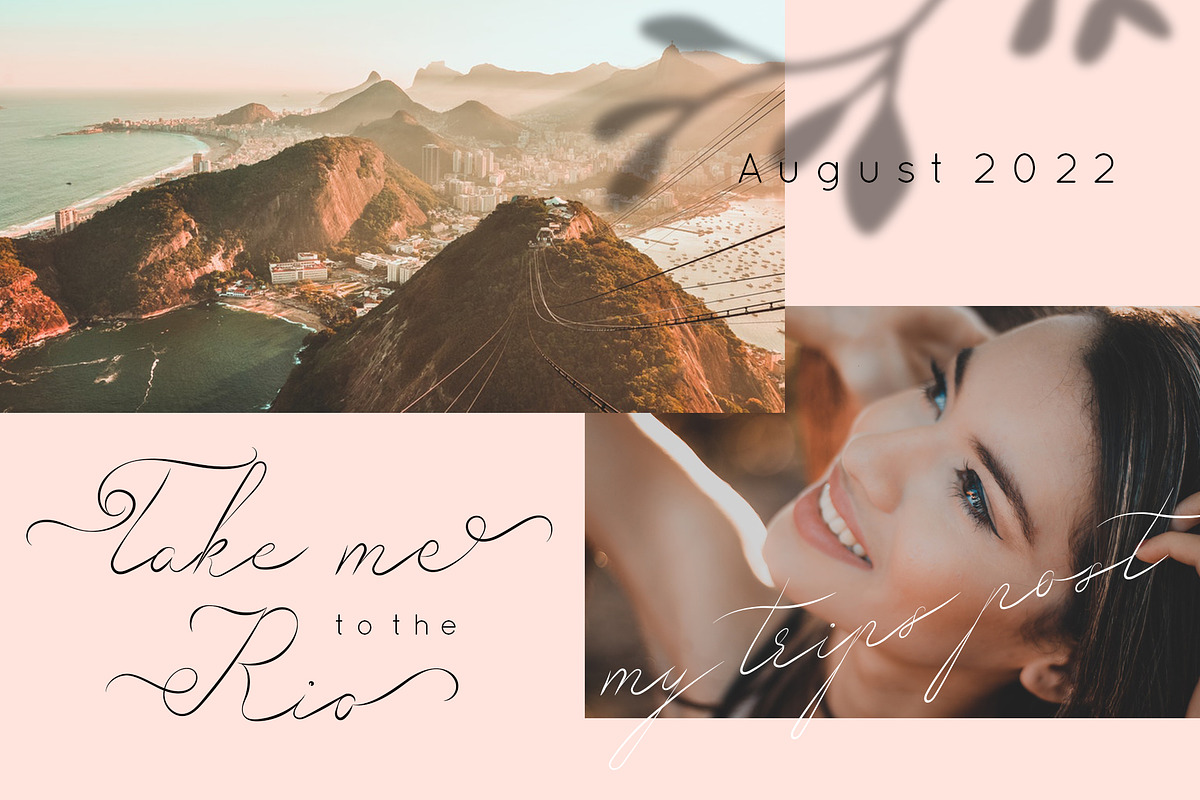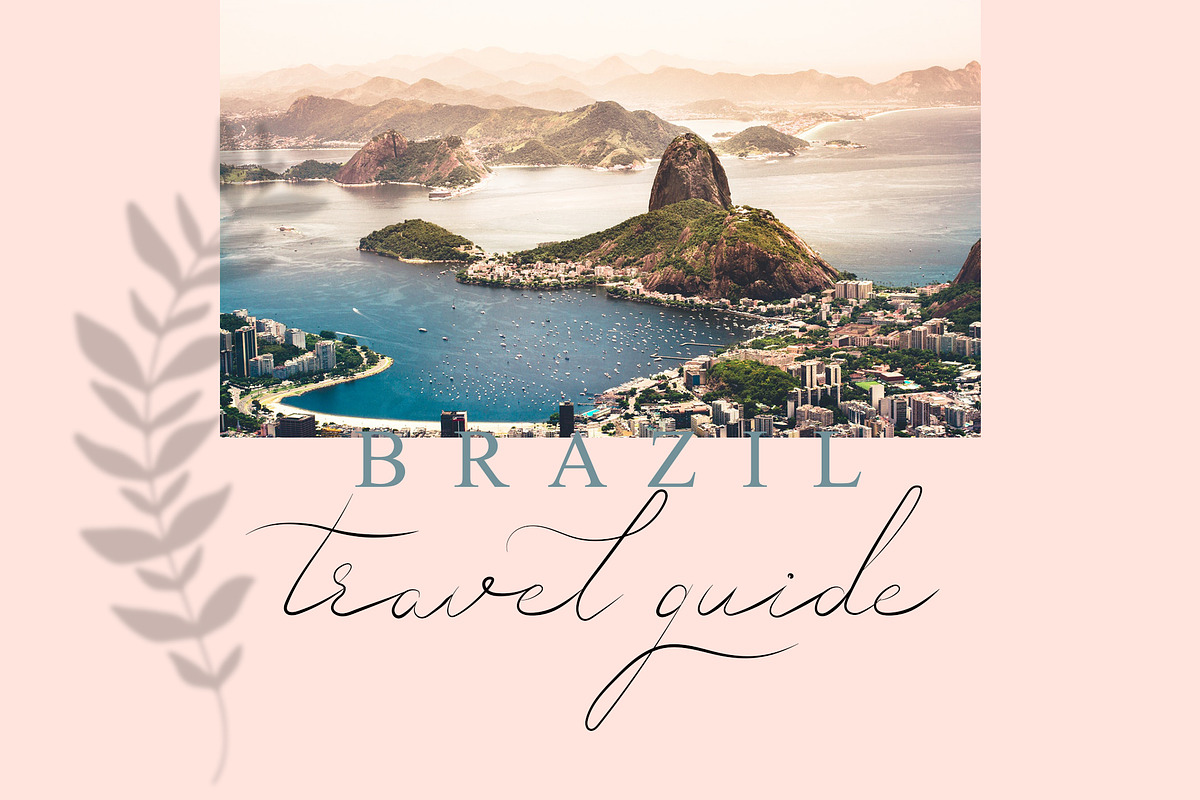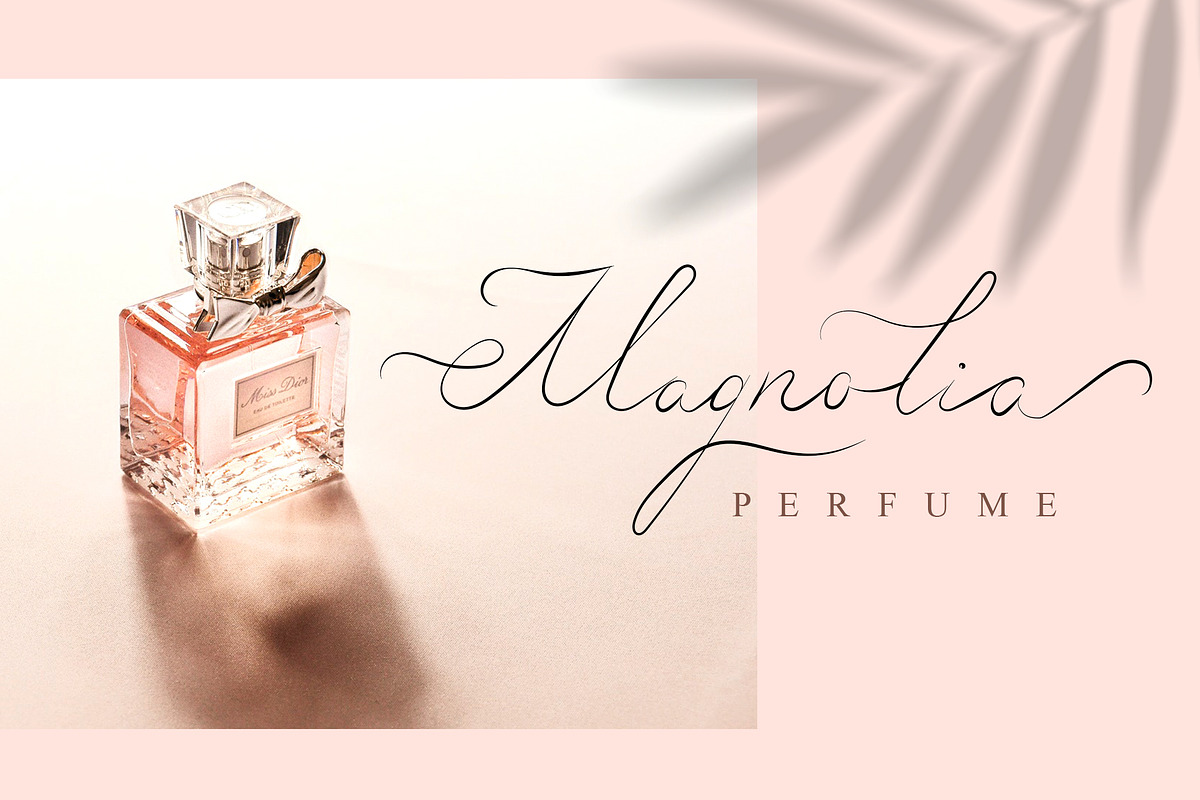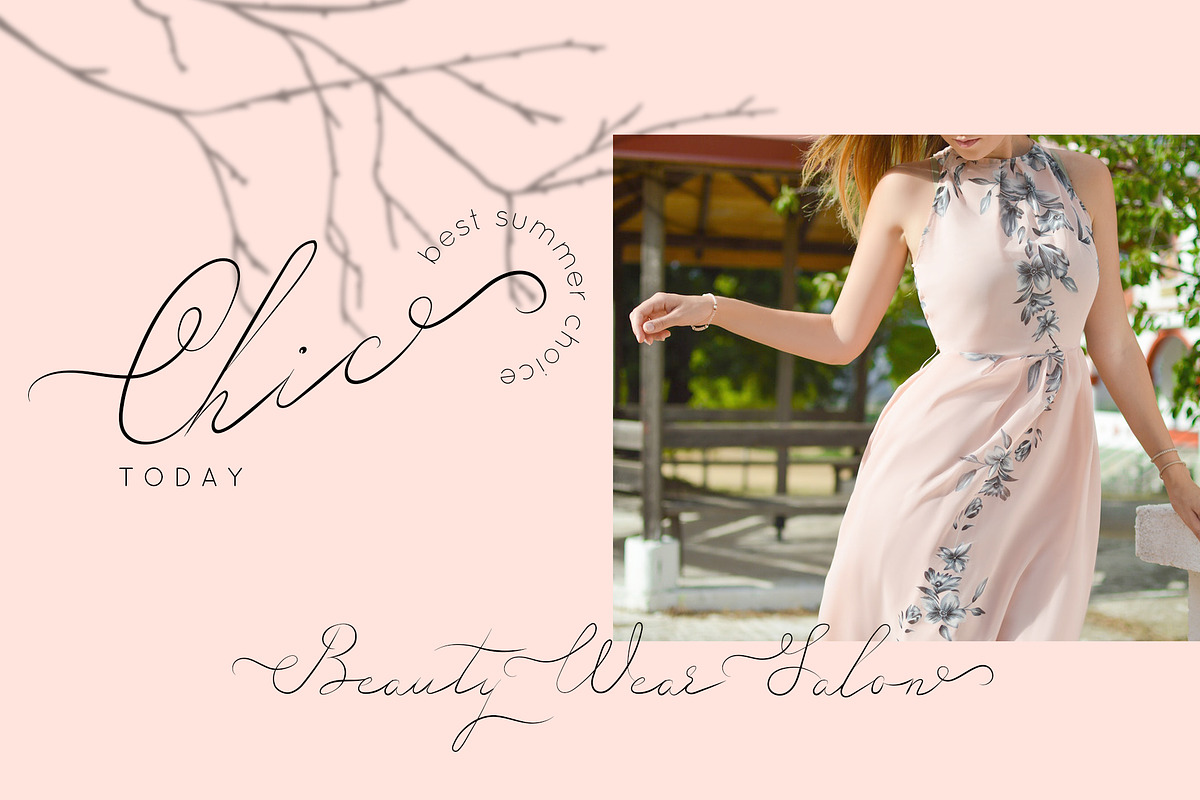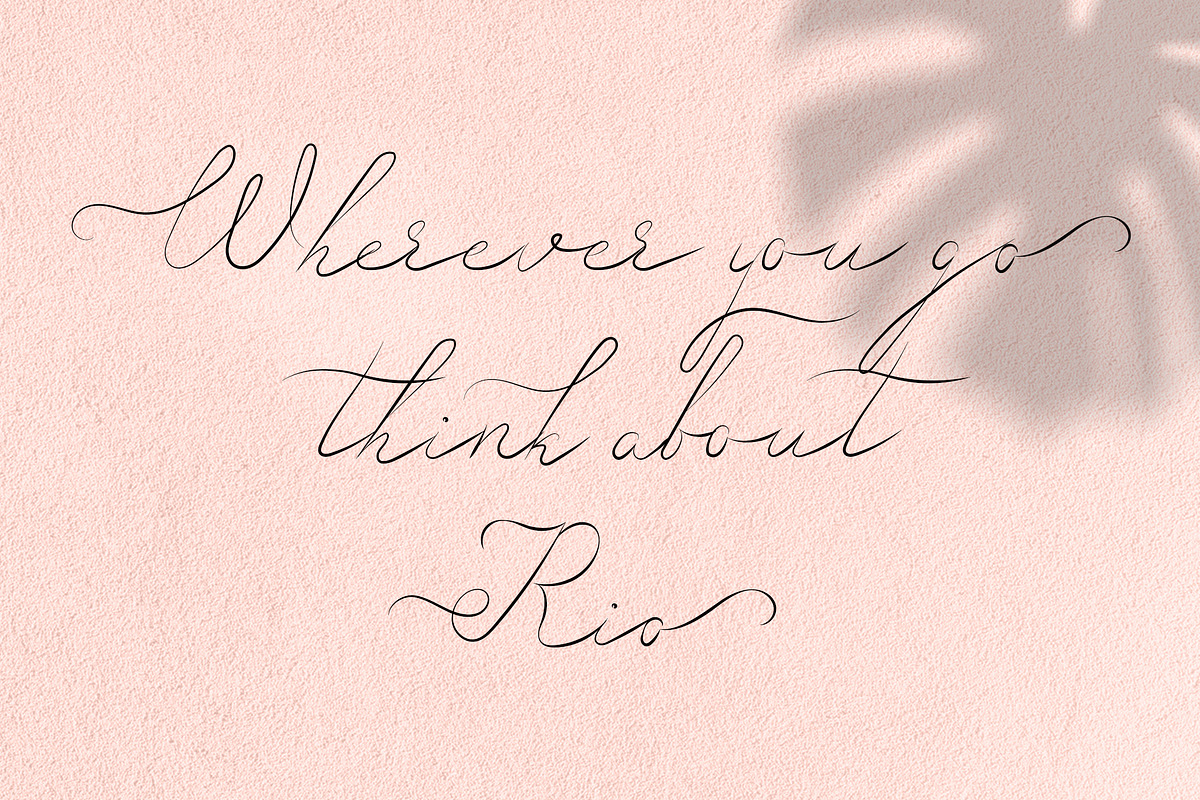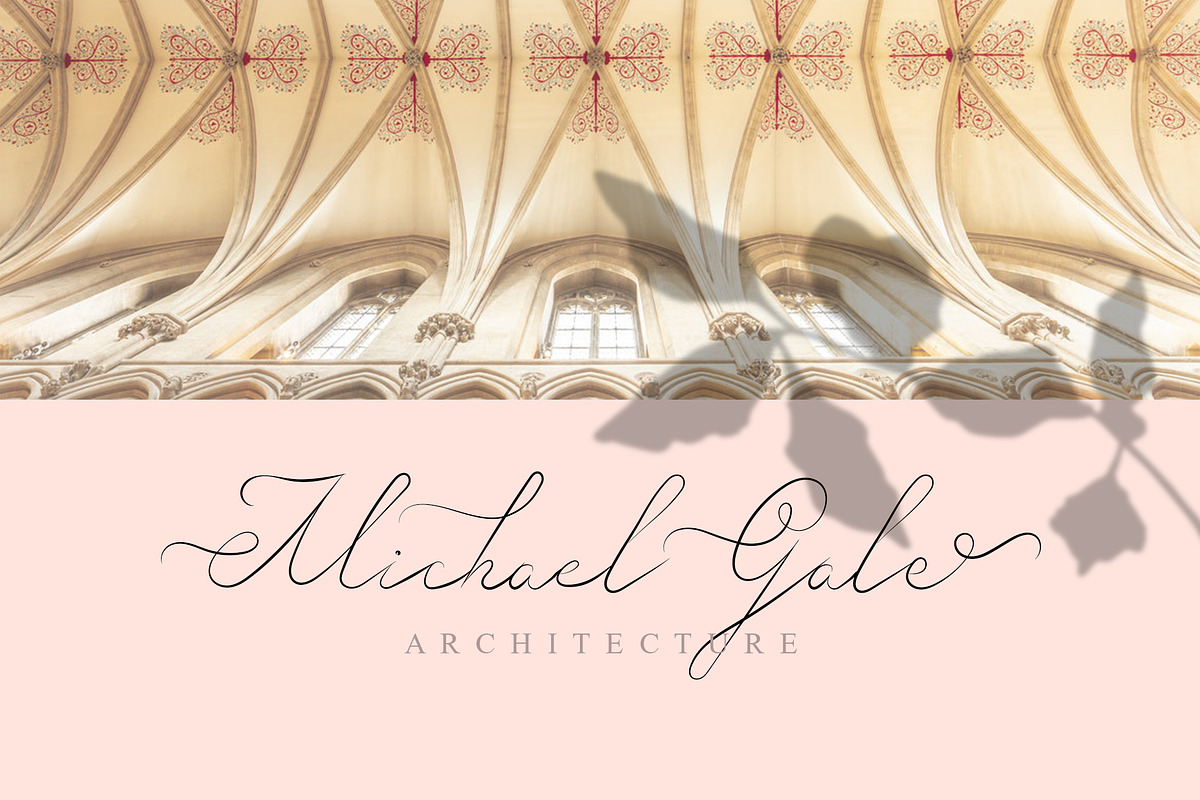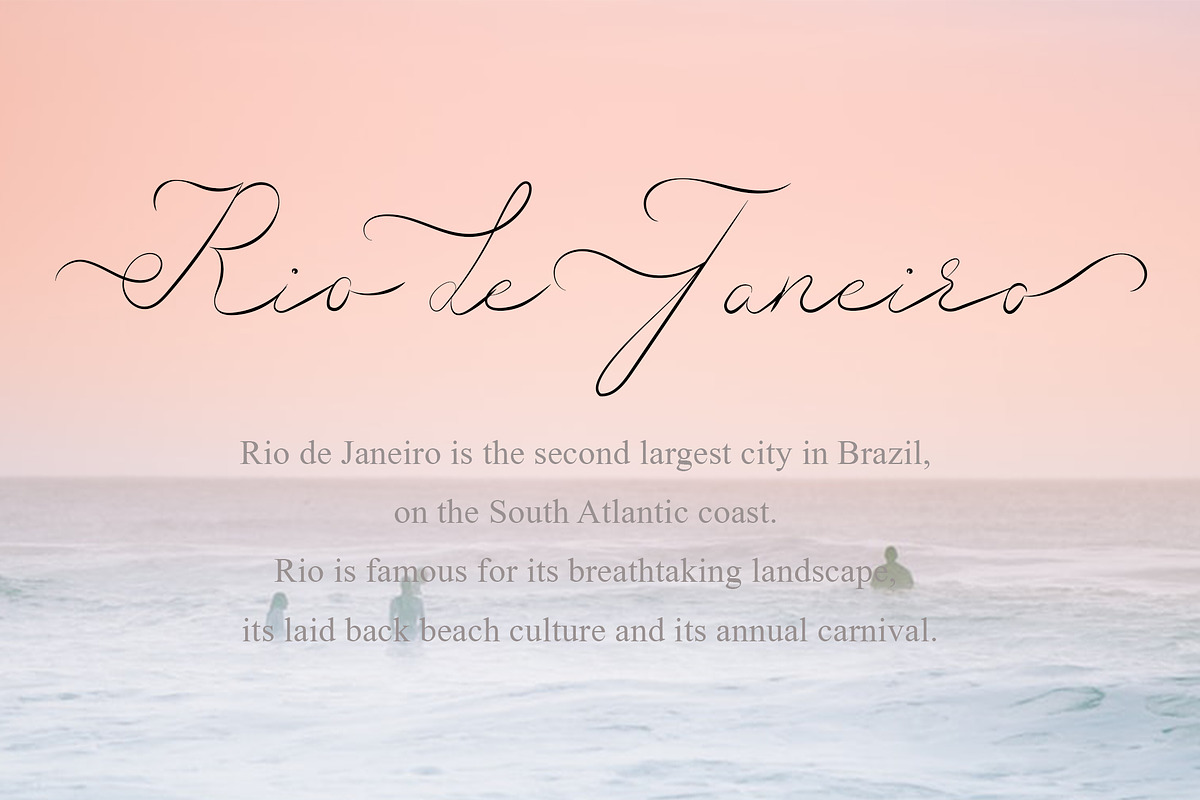
Rio Love | Signature Script Font
Rio Love reflects the warmest feelings of coming summer vacations and adventures. High fashioned script will help you to create gorgeous wedding invitations, logos, packaging, posters, social media, blog posts, headlines, advertising, branding and more!
Rio Love is perfect for multiple contexts. This monoline elegant font looks very natural and fashionable at the same time, and helps you to create special, romantic and touching typographical design for every day or the happiest day in life.
As this font looks close to a natural handwritten script, there are not only uppercase and lowercase characters, numbers and punctuations, but also alternates.
Rio Love has multiligual support (French, German, Italian, Norwegian, Portuguese, Spanish, Swedish, Swiss German).